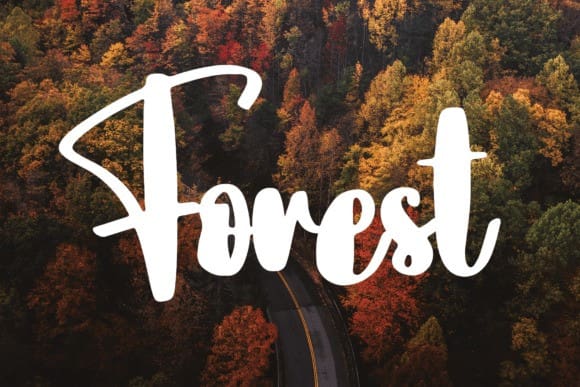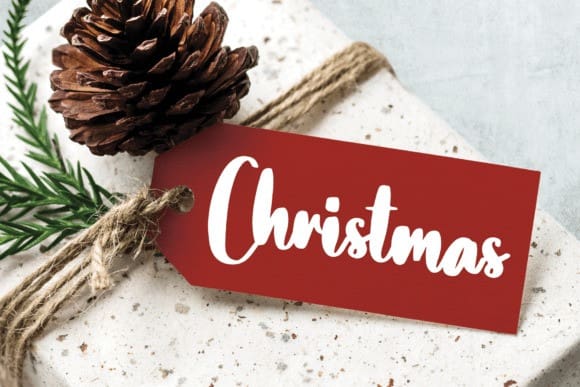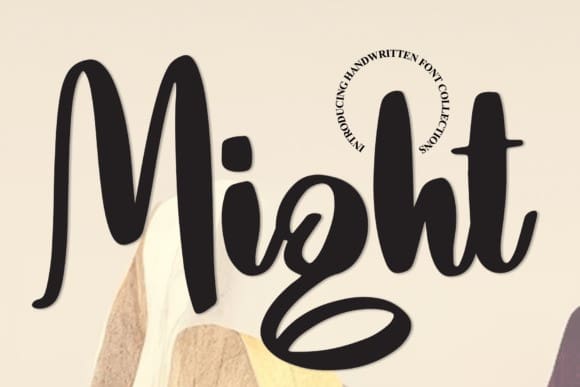
Might Script Font
Might Script Font is a bold handwritten font that is perfect for wall displays, wedding invitations, social media post logos, advertisements, product packaging, product designs, labels, photography, watermarks, invitations, stationery, and any project that requires handwriting.